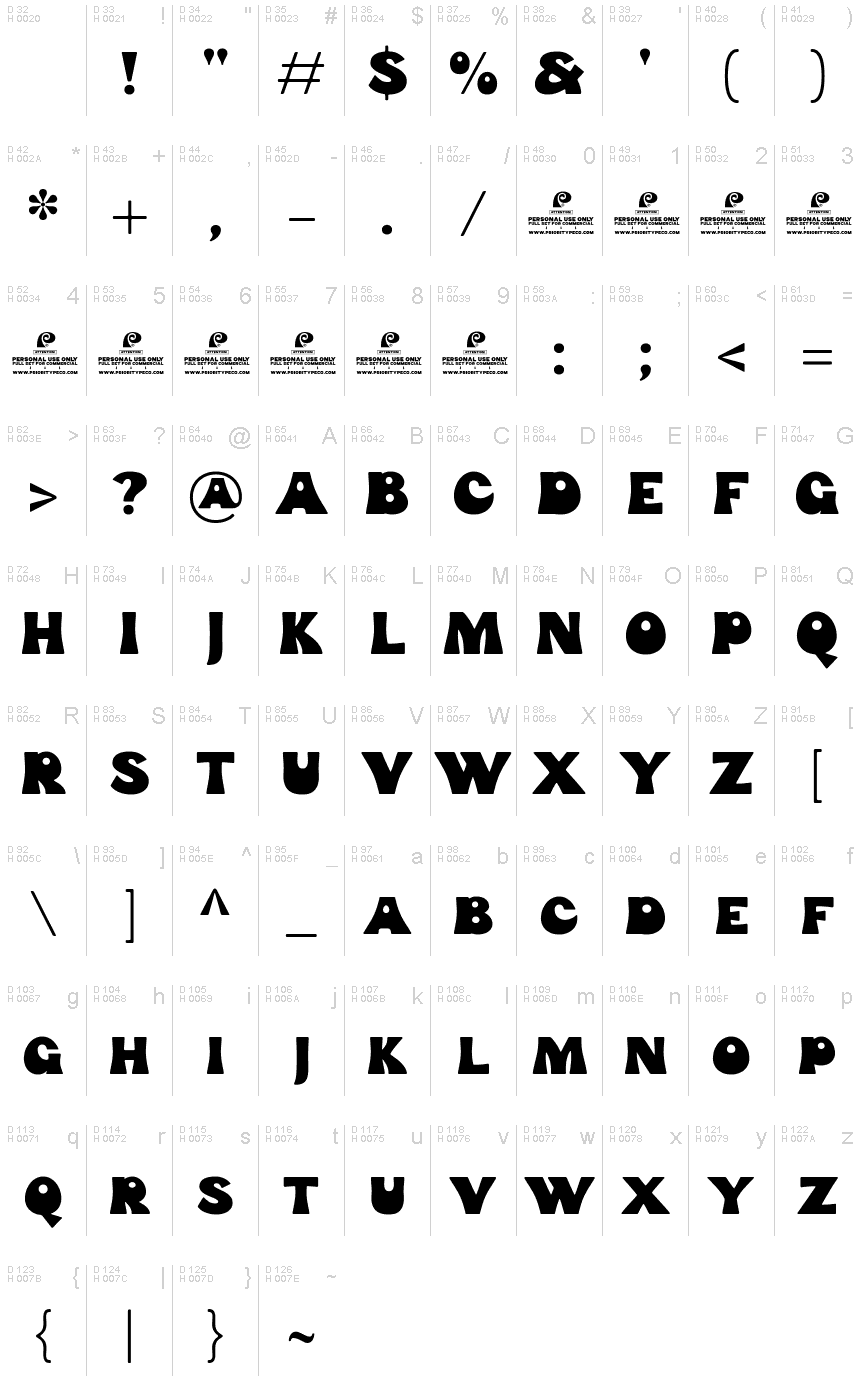
Funk Gibson, designed by Prioritype Co, is not your average display font. With its ultra-bold weight and semi-expanded width, this groovy typeface exudes a sense of cool confidence that can turn any creative project into a standout masterpiece. Its expressive flair captures the essence of fun and freshness, making it an ideal choice for designers looking to inject vibrant personality into posters, crafts, branding initiatives, or merchandise.
Whether you're crafting a retro-themed event invitation or developing an eye-catching brand identity, Funk Gibson offers versatility and style in spades. Embrace the dynamic charm of this unique font and watch as it takes your designs to new heights of creativity!